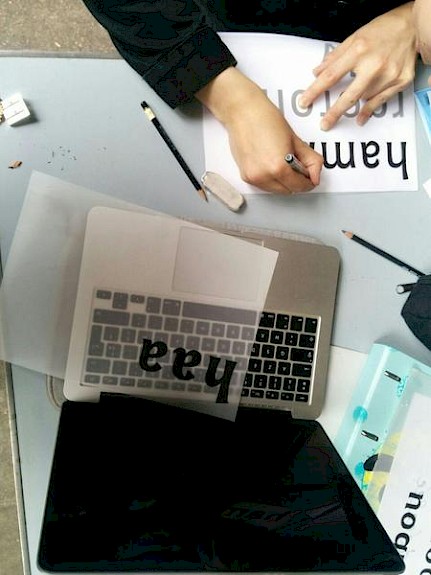
Workshop Font Fonk Fork
This workshop took place during the early days of 2016 summer in la Générale in Paris. This workshop was about the fork, the fact of modifying an open-source project. All participants created a different version of the same typeface, Cooper Hewitt, designed by Chester Jenkins for the New York Smithsonian Design Museum. These different typefaces build a new complex family with diverse fonts sharing the same structure and rythm. See and download the results on the project’s page.